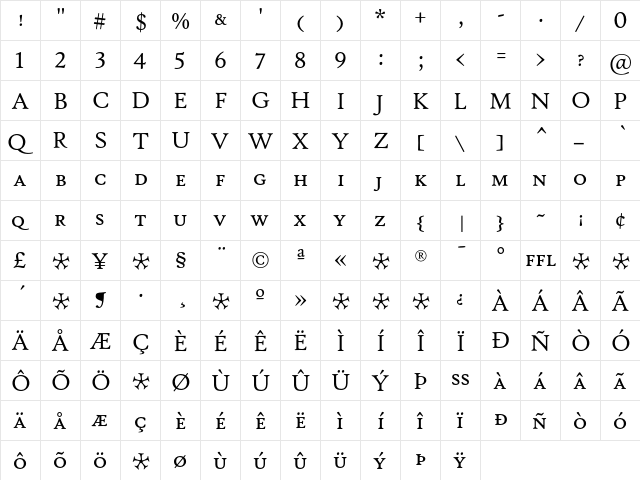
Hightower TextRomanSC
Design Context for Hightower Typeface
Hightower takes a measured approach to typography — its balanced proportions and neutral character make it a reliable workhorse for both digital and print work.
Pro Tip: Pair Hightower with a font of contrasting weight or personality to build a more expressive typographic hierarchy.